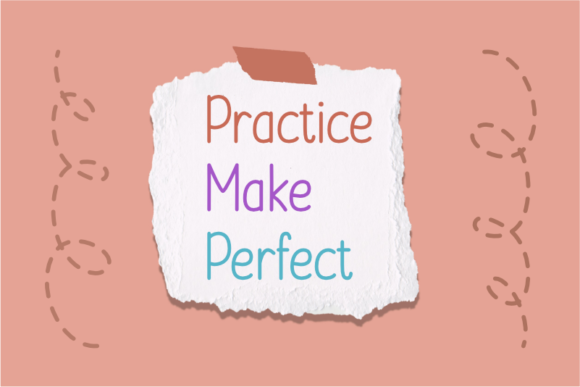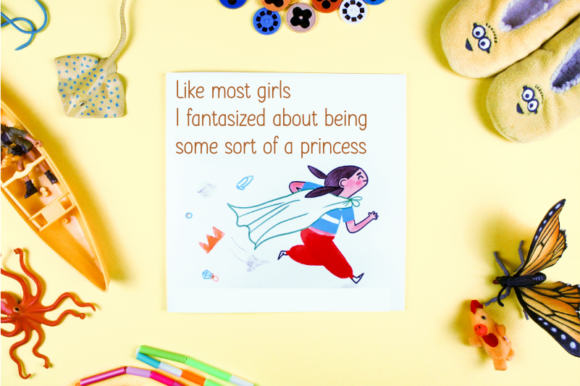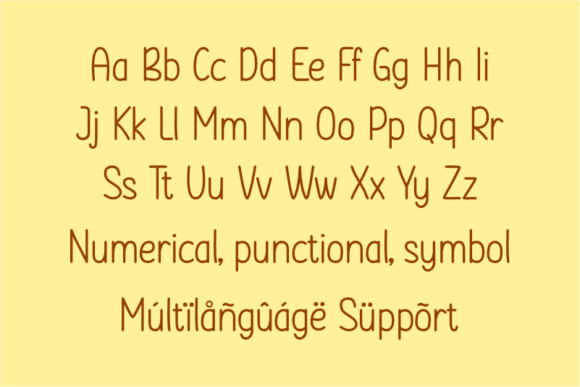
Introducing Childea Font: The Perfect Playful Addition to Your Design Projects
Are you tired of using the same old fonts in your design projects? Look no further than Childea Font, a delicate and fun handwritten font that’s sure to add a playful element to your next creation. With its cute swirls and adorable handwritten style, Childea Font is perfect for designers and crafters looking to add a touch of whimsy to their work.
What is Childea Font?
Childea Font is a unique and charming handwritten font that’s designed to resemble an adorable handwritten style. Its delicate and fun design makes it perfect for a variety of design projects, from children’s books and educational materials to branding and marketing campaigns. With its cute swirls and playful vibe, Childea Font is sure to capture the attention of your audience and leave a lasting impression.
Key Features of Childea Font
- Delicate and Fun Design: Childea Font features a delicate and fun design that’s perfect for adding a playful element to your design projects.
- Cute Swirls: The font’s cute swirls add a touch of whimsy and personality to your text, making it perfect for designs that require a bit of flair.
- Handwritten Style: Childea Font’s handwritten style gives it a personal and approachable feel that’s perfect for designs that require a human touch.
- Playful Vibe: The font’s playful vibe makes it perfect for designs that require a bit of fun and personality.
Uses for Childea Font
Childea Font is a versatile font that can be used in a variety of design projects, including:
- Children’s Books and Educational Materials: Childea Font’s playful and whimsical design makes it perfect for children’s books and educational materials.
- Branding and Marketing Campaigns: The font’s unique and charming design makes it perfect for branding and marketing campaigns that require a bit of personality.
- Stationery and Invitations: Childea Font’s handwritten style and cute swirls make it perfect for stationery and invitations.
- Digital Media: The font’s playful and fun design makes it perfect for digital media, including social media graphics and website headers.
Tips for Using Childea Font
Here are a few tips for using Childea Font in your design projects:
- Use it for Headings and Titles: Childea Font’s playful and whimsical design makes it perfect for headings and titles.
- Pair it with a Serif Font: Pairing Childea Font with a serif font can create a nice contrast and add visual interest to your design.
- Experiment with Colors and Textures: Childea Font’s playful design makes it perfect for experimenting with different colors and textures.
Childea Font is a unique and charming handwritten font that’s perfect for designers and crafters looking to add a playful element to their design projects. With its cute swirls and adorable handwritten style, Childea Font is sure to capture the attention of your audience and leave a lasting impression. Whether you’re working on a children’s book, branding campaign, or digital media project, Childea Font is a great choice for adding a bit of fun and personality to your design.